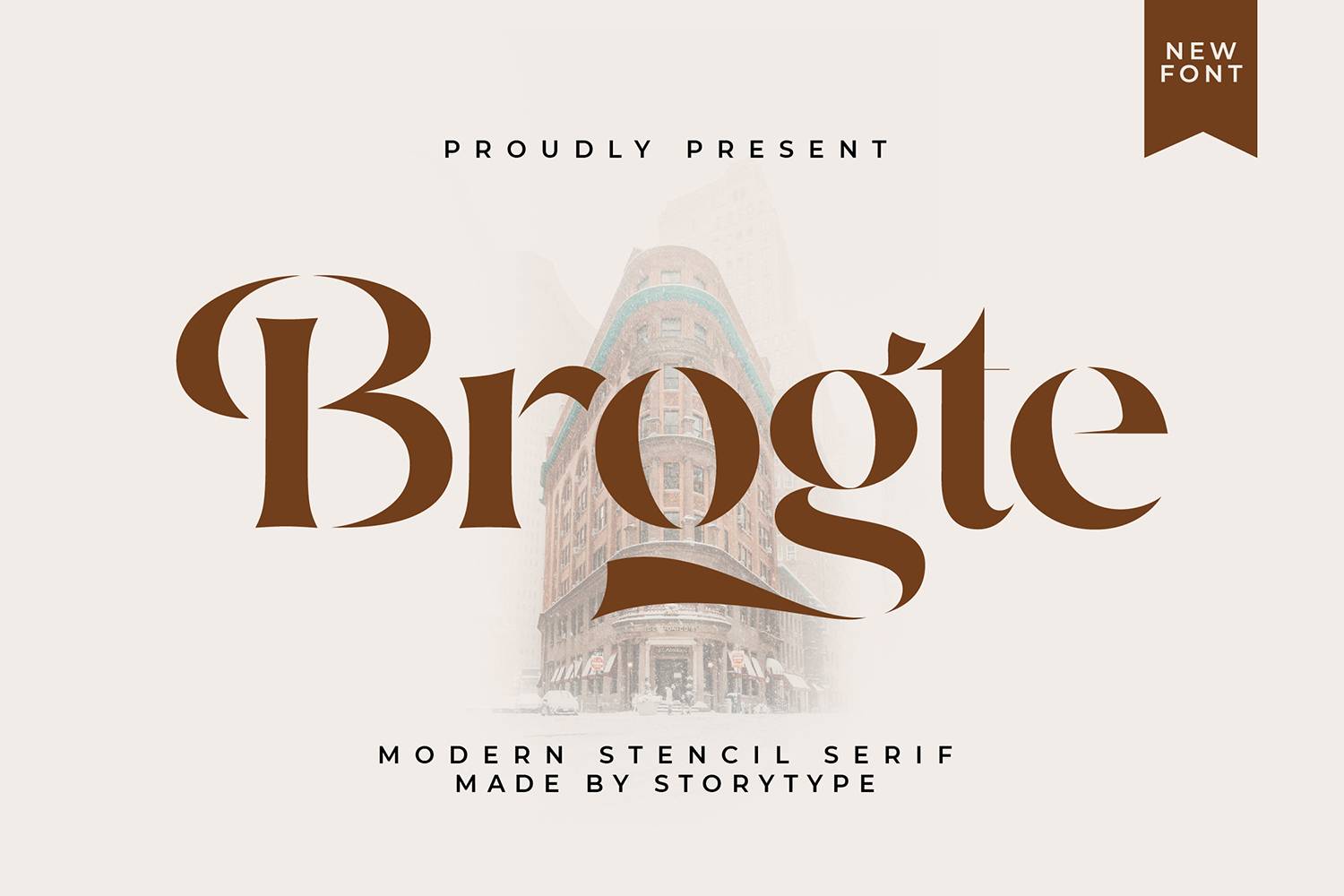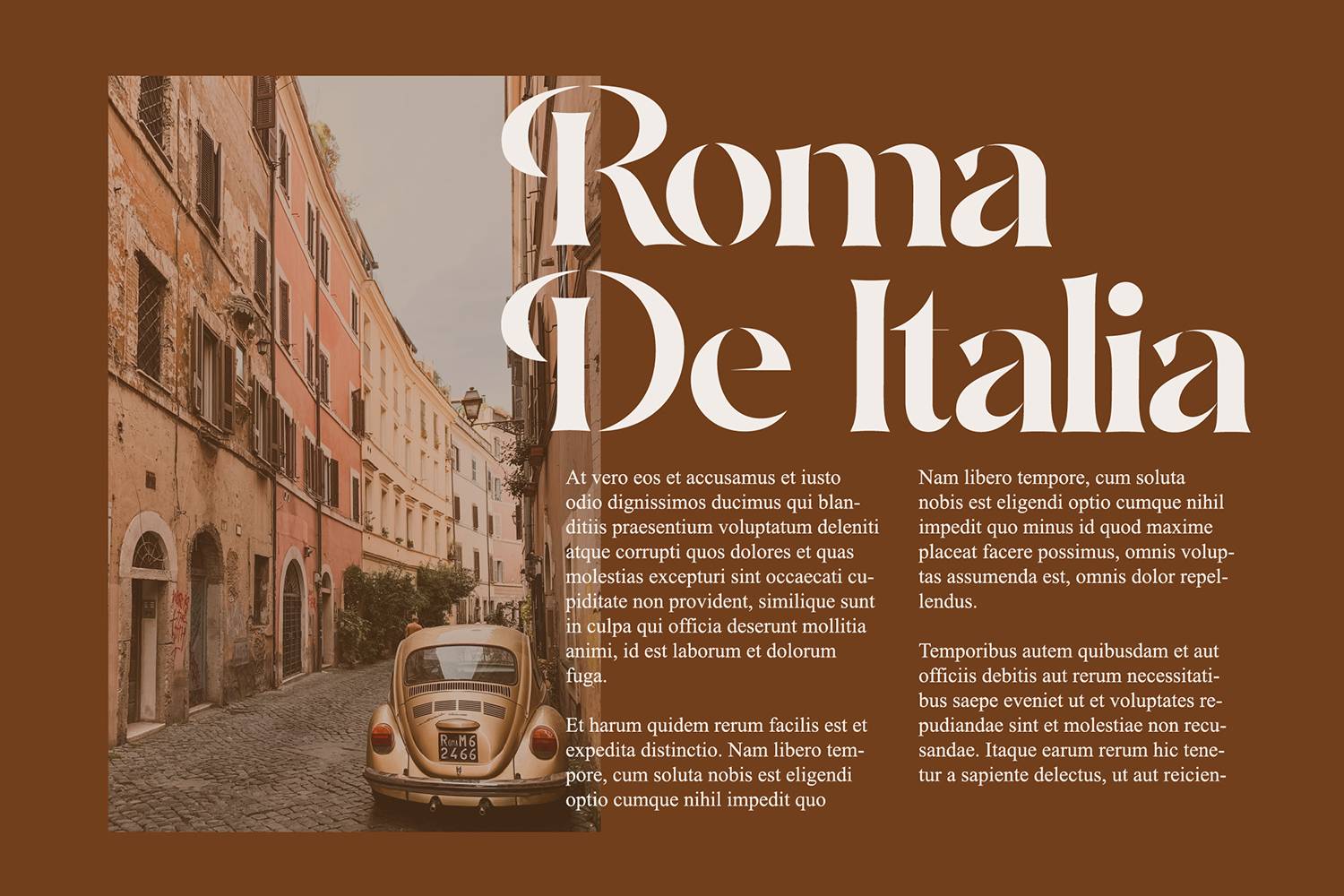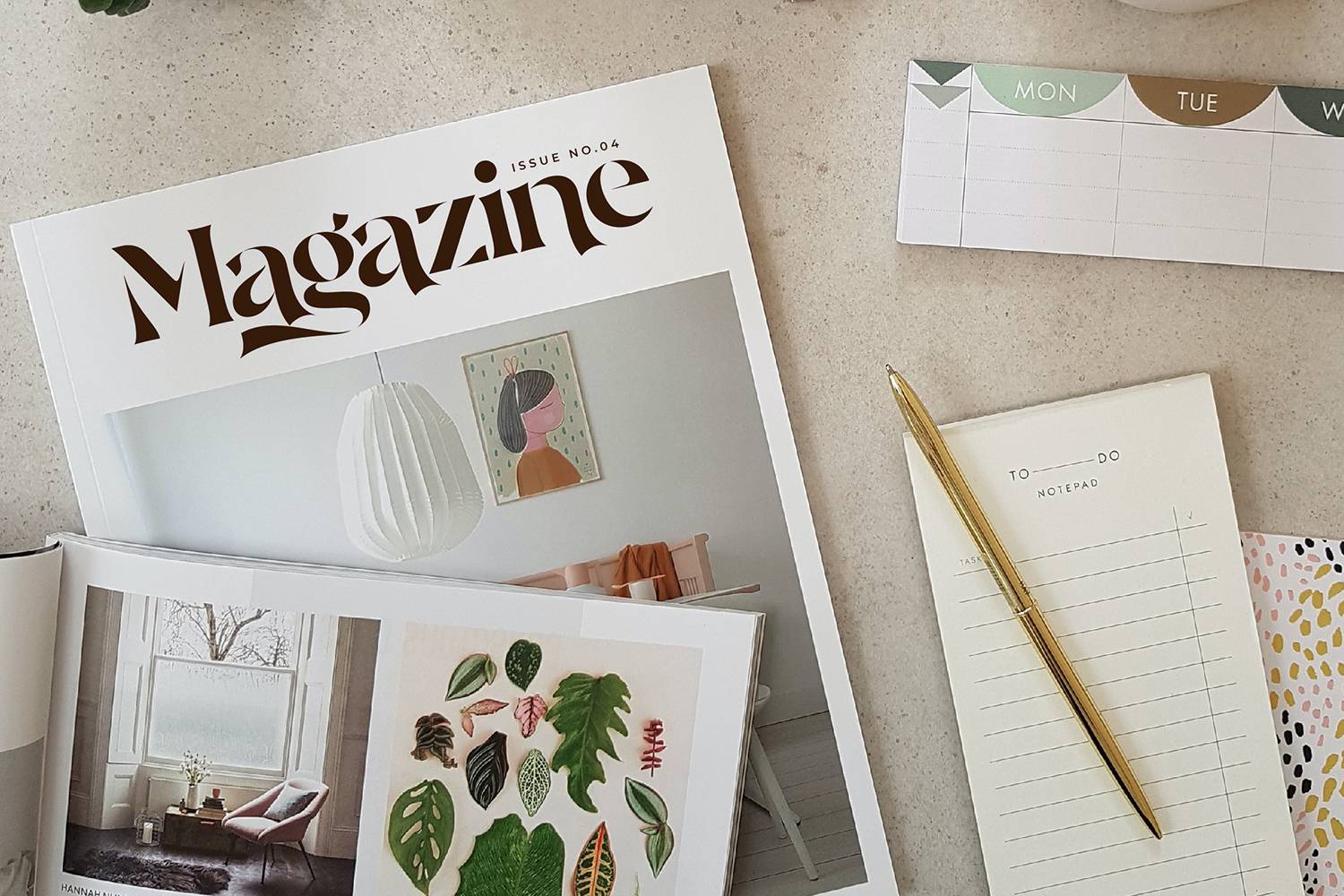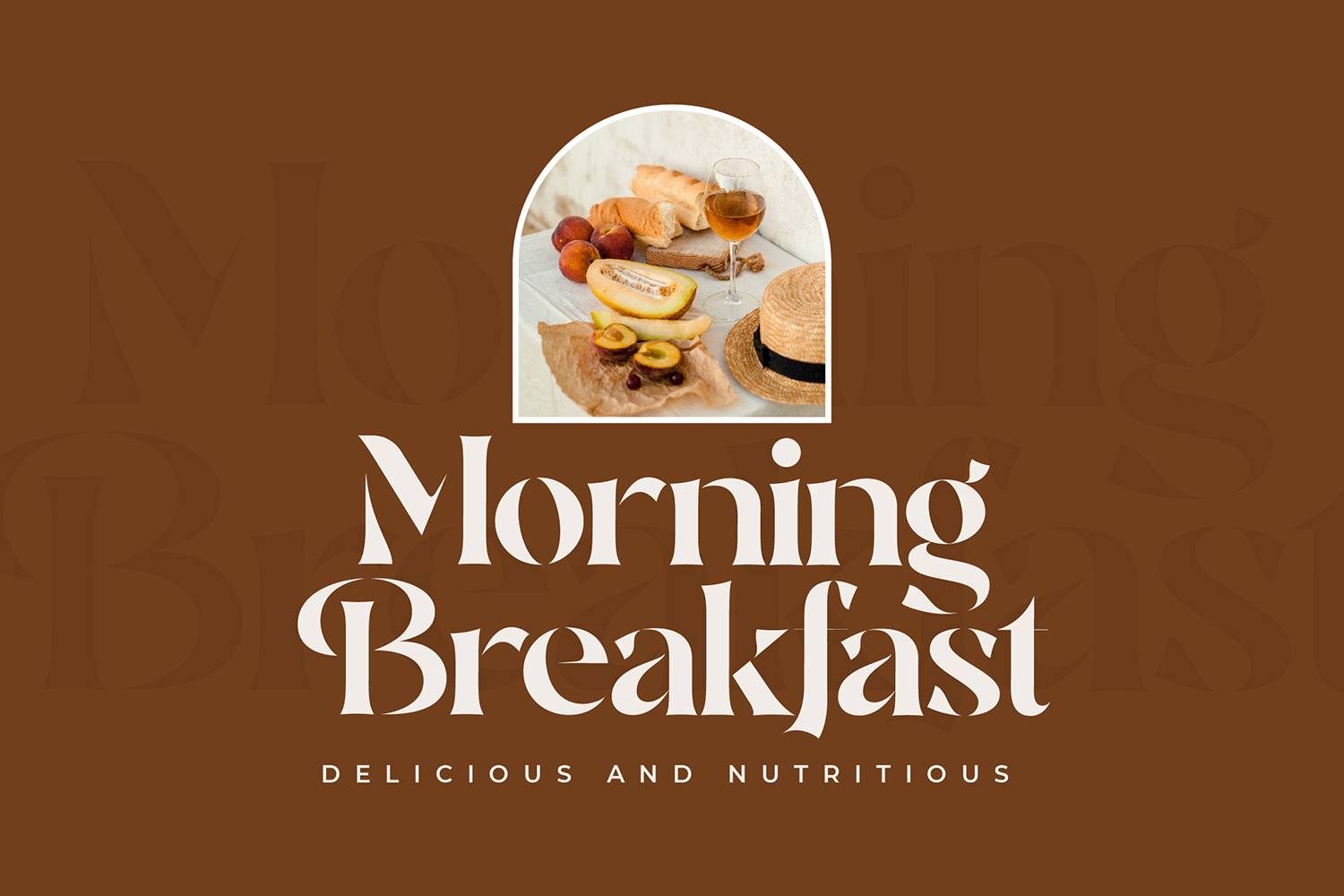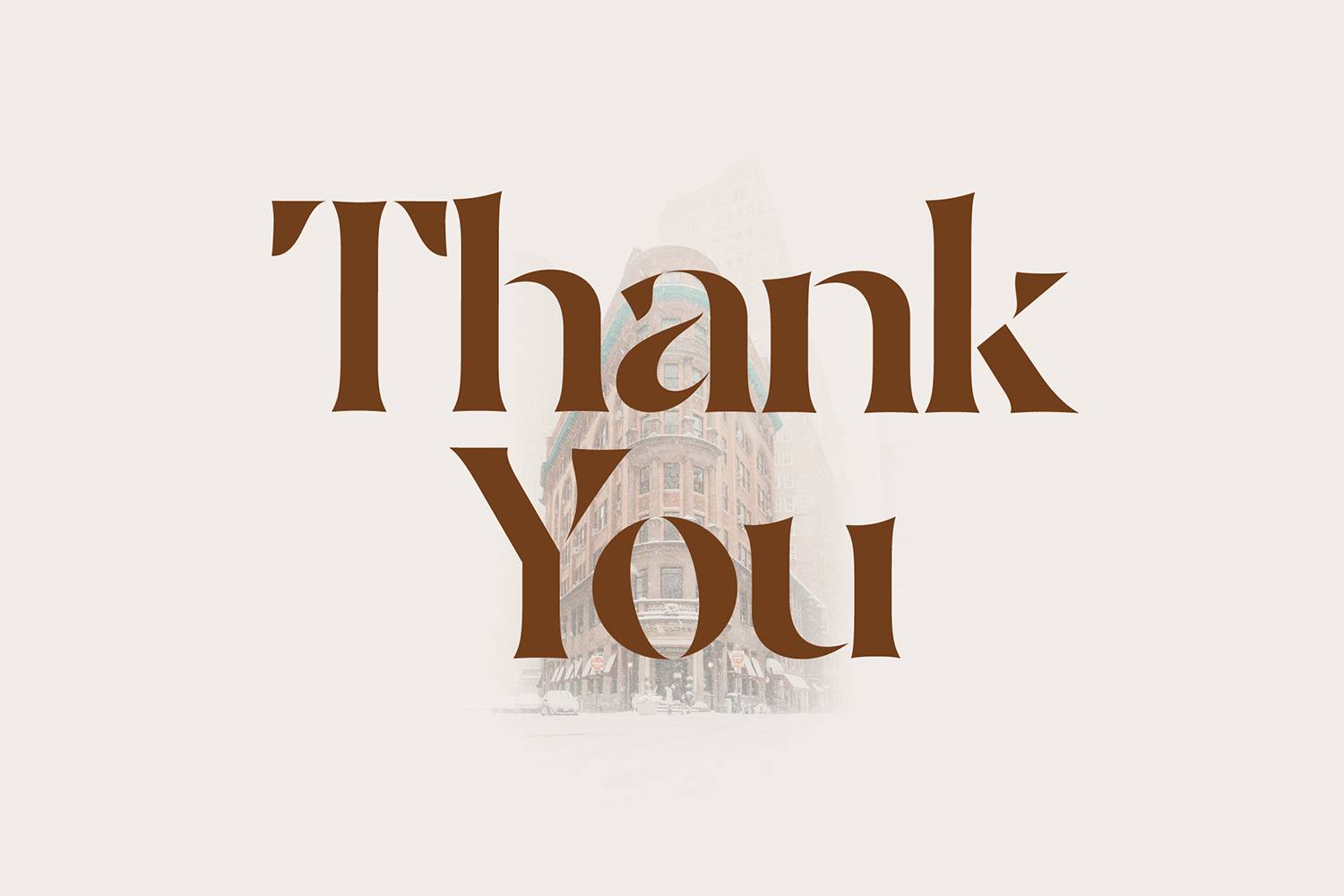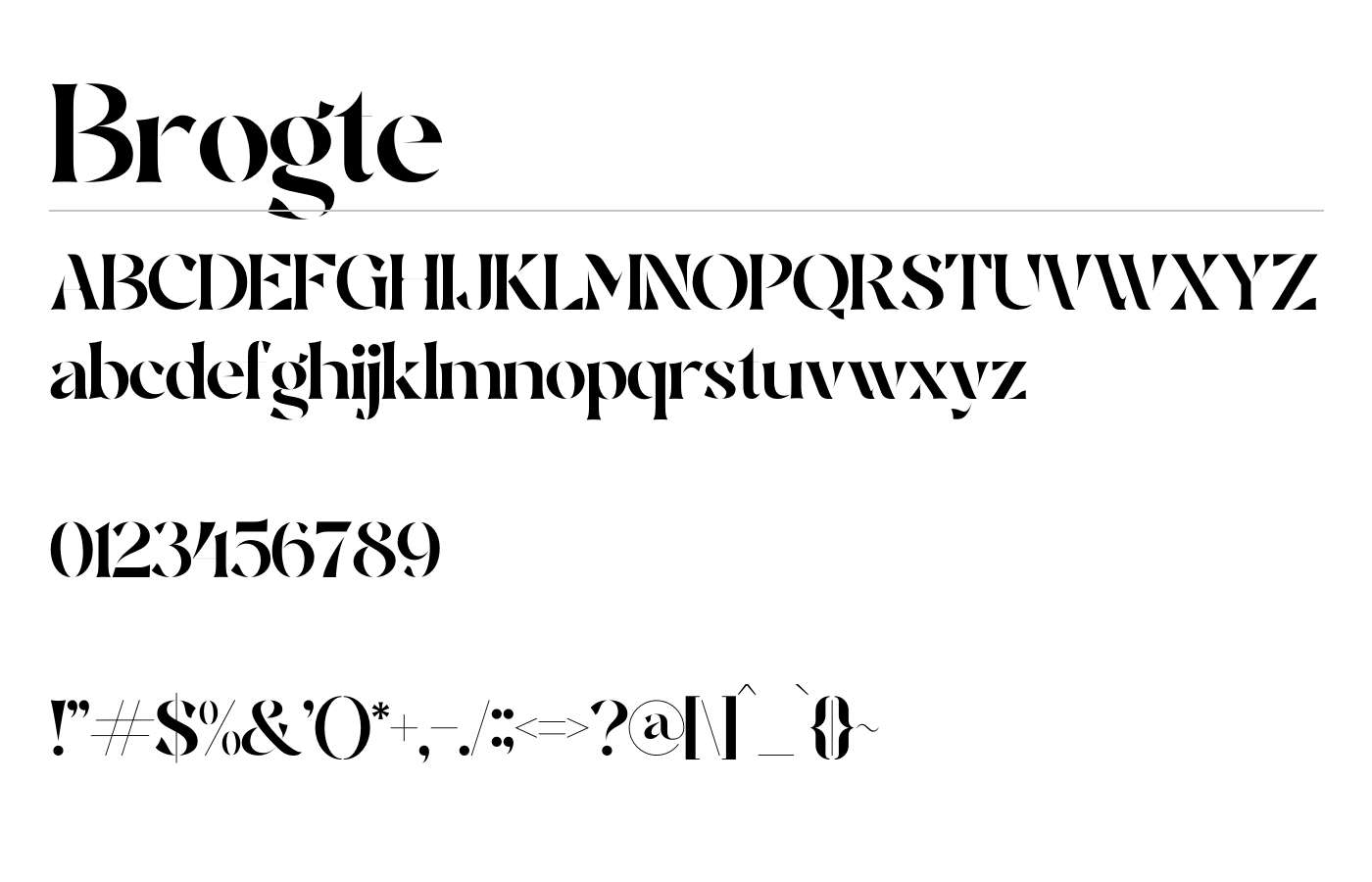
Brogte is a striking serif font that combines bold, high-contrast strokes with sharp, angular shapes, creating a modern yet elegant feel. Its unique letterforms, including sharp serifs and stylized curves, give it a sophisticated personality ideal for luxury branding, editorial headlines, and eye-catching logos. This font shines best in designs that demand a strong, refined presence with a touch of contemporary flair.
Brogte Font
About Brogte Font